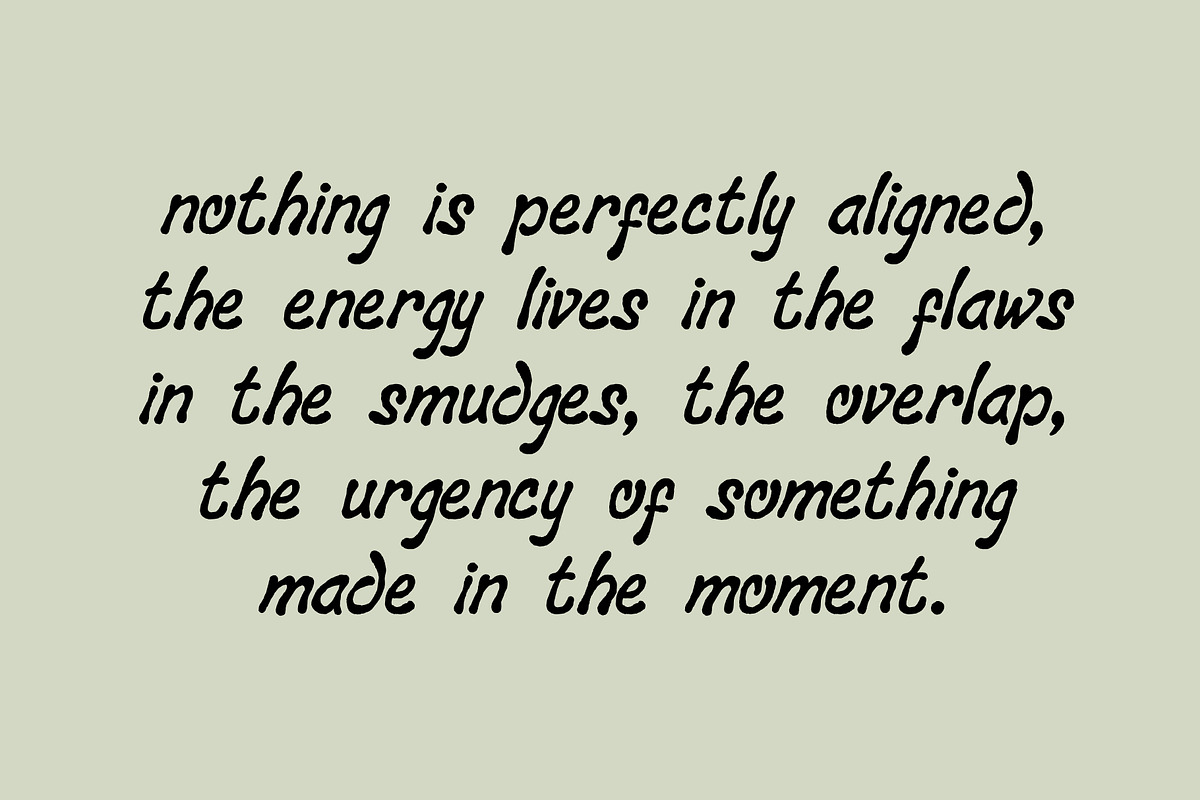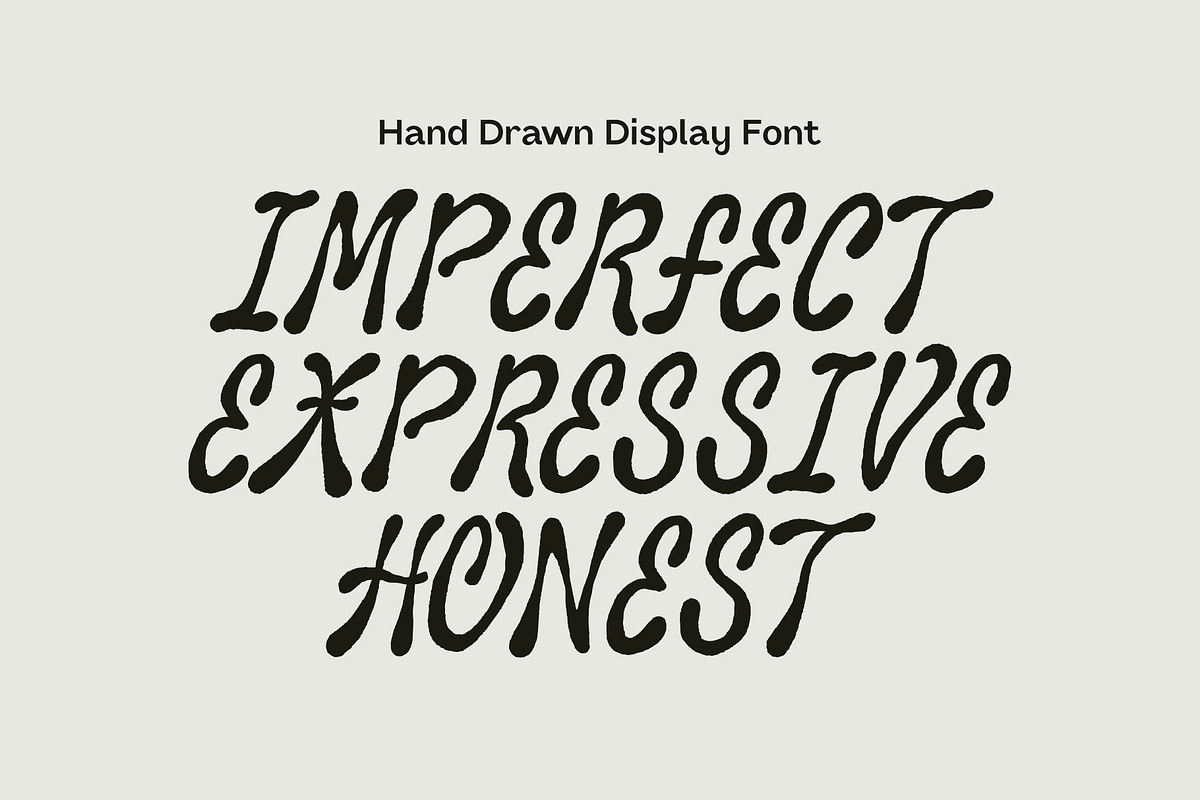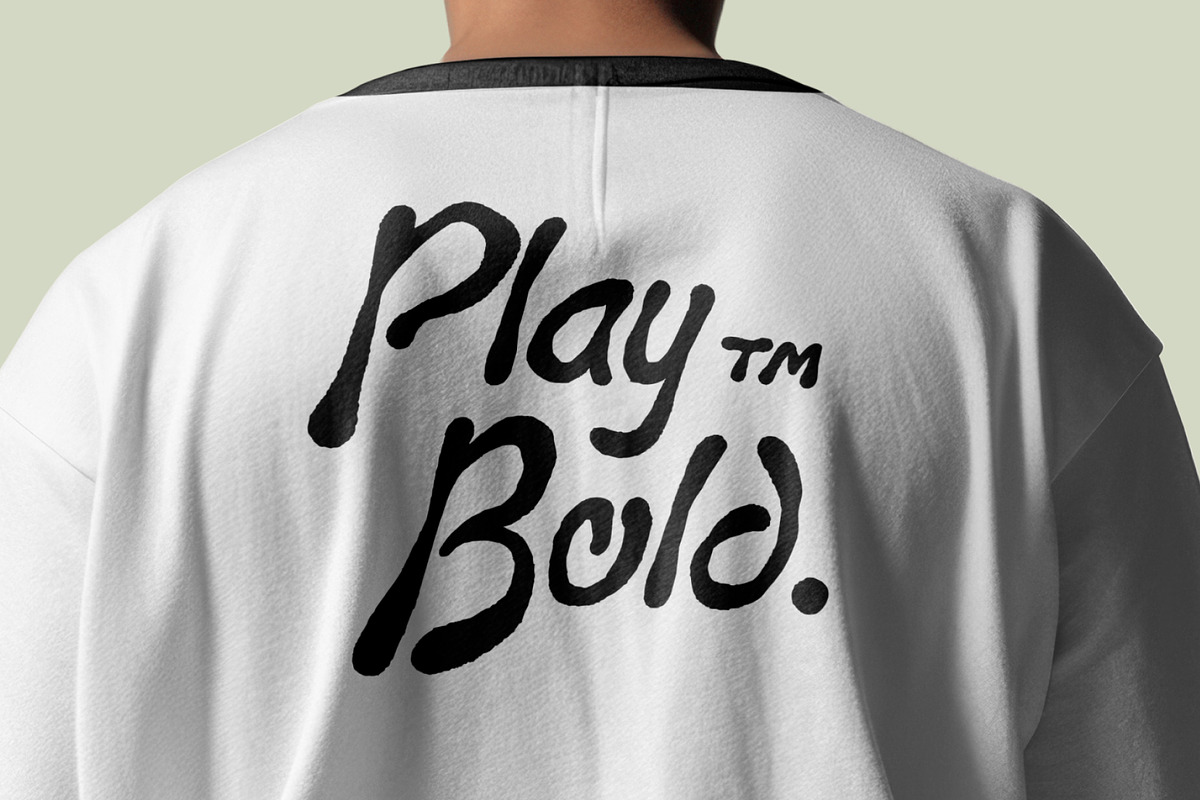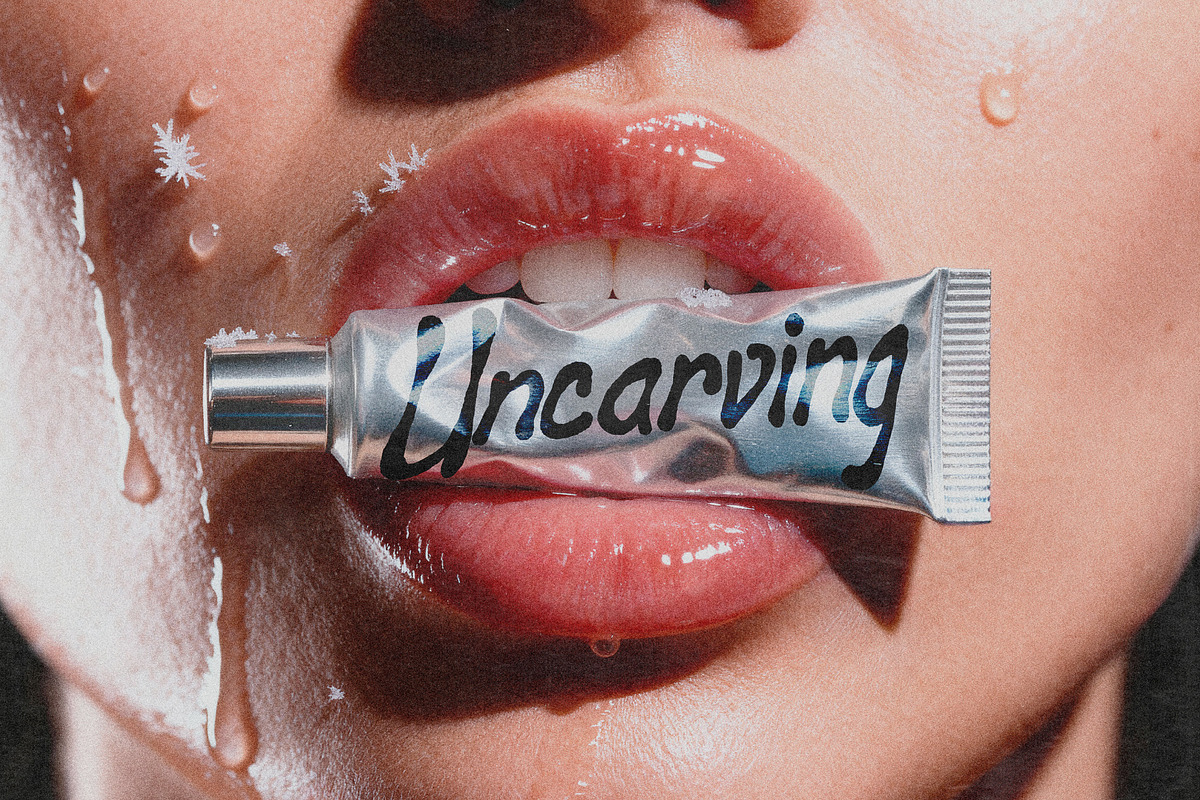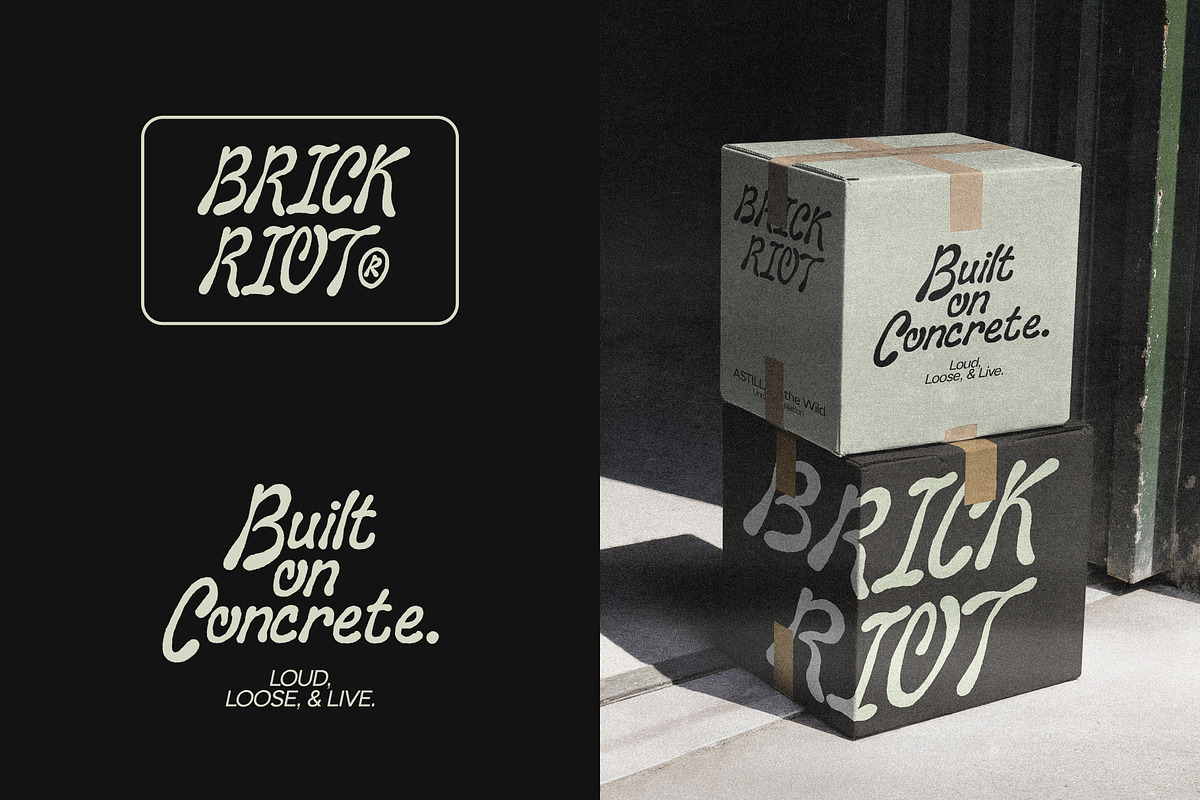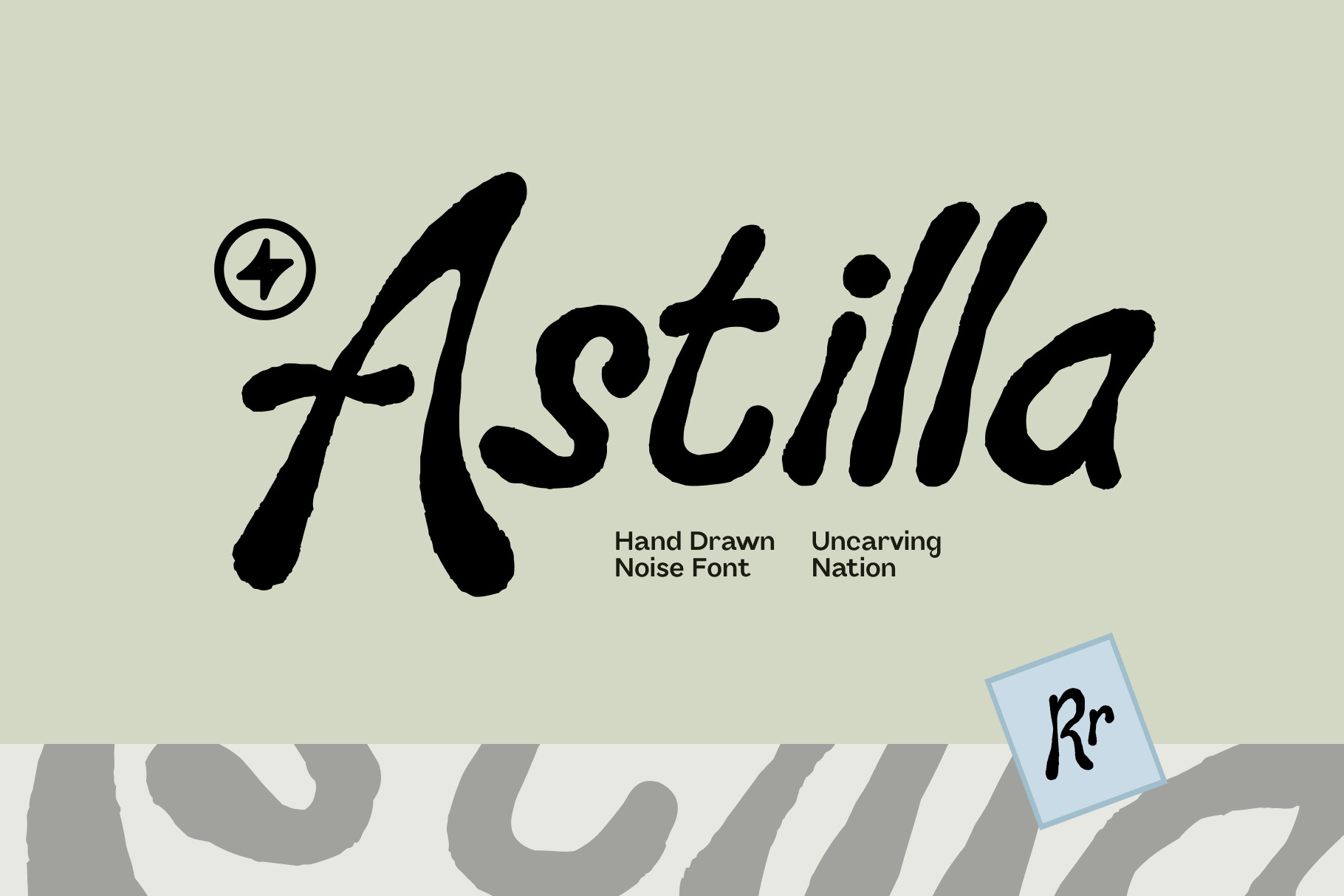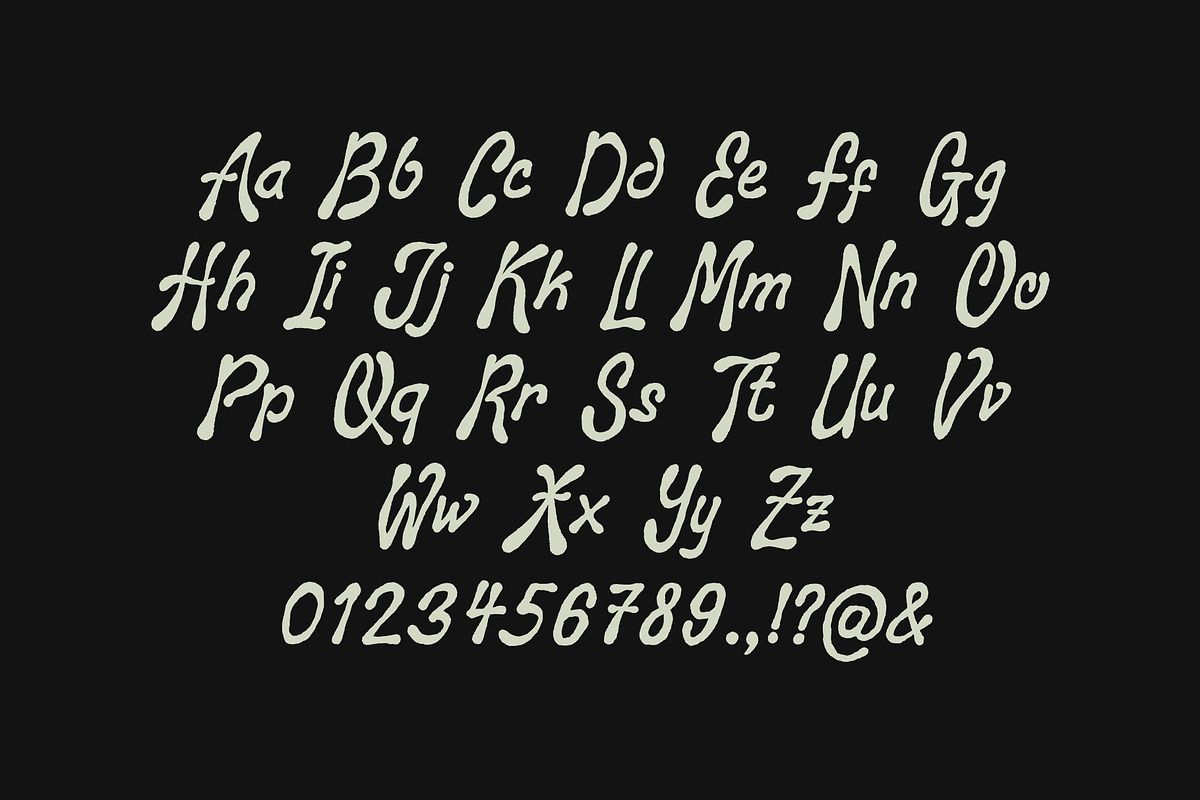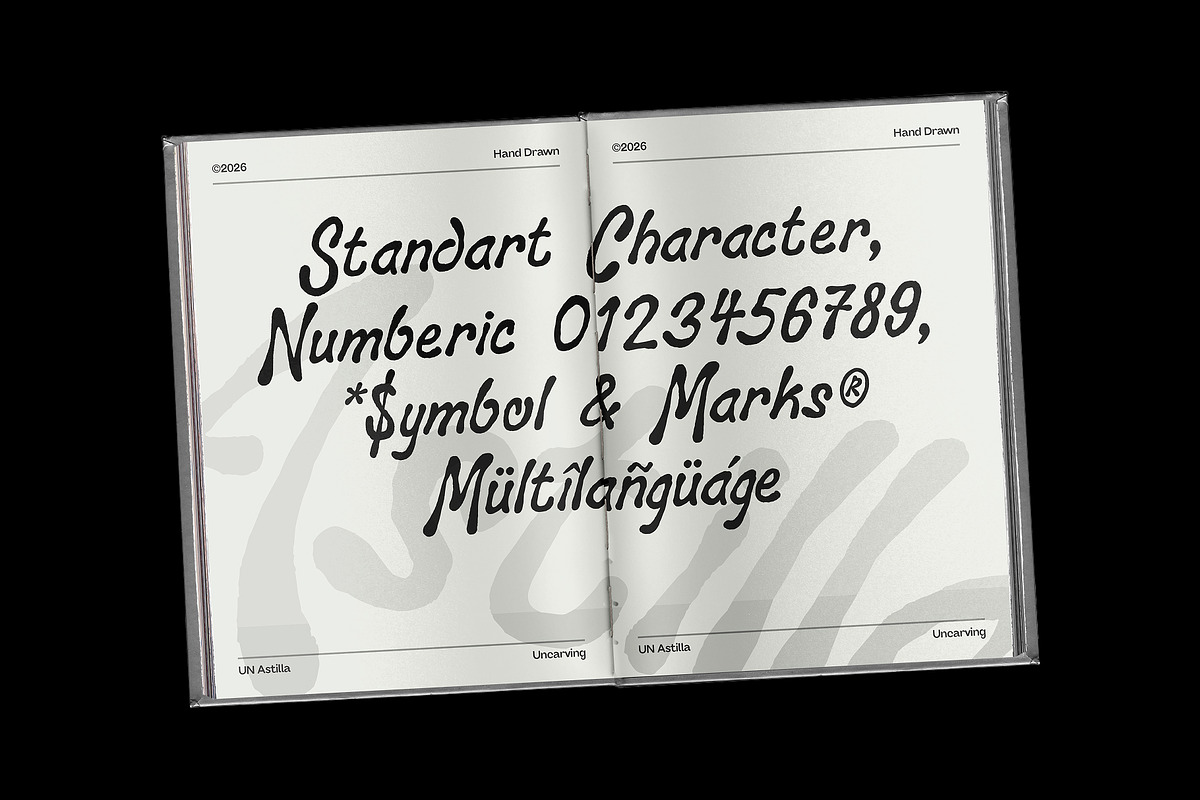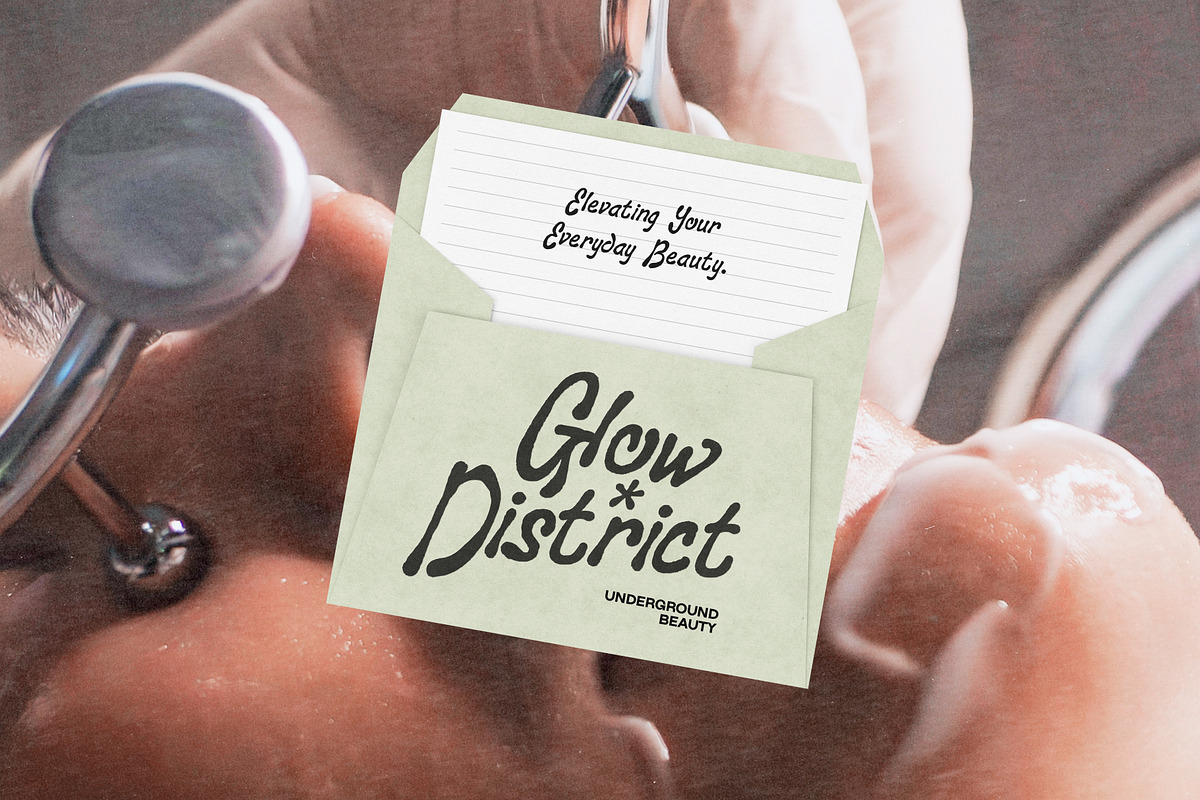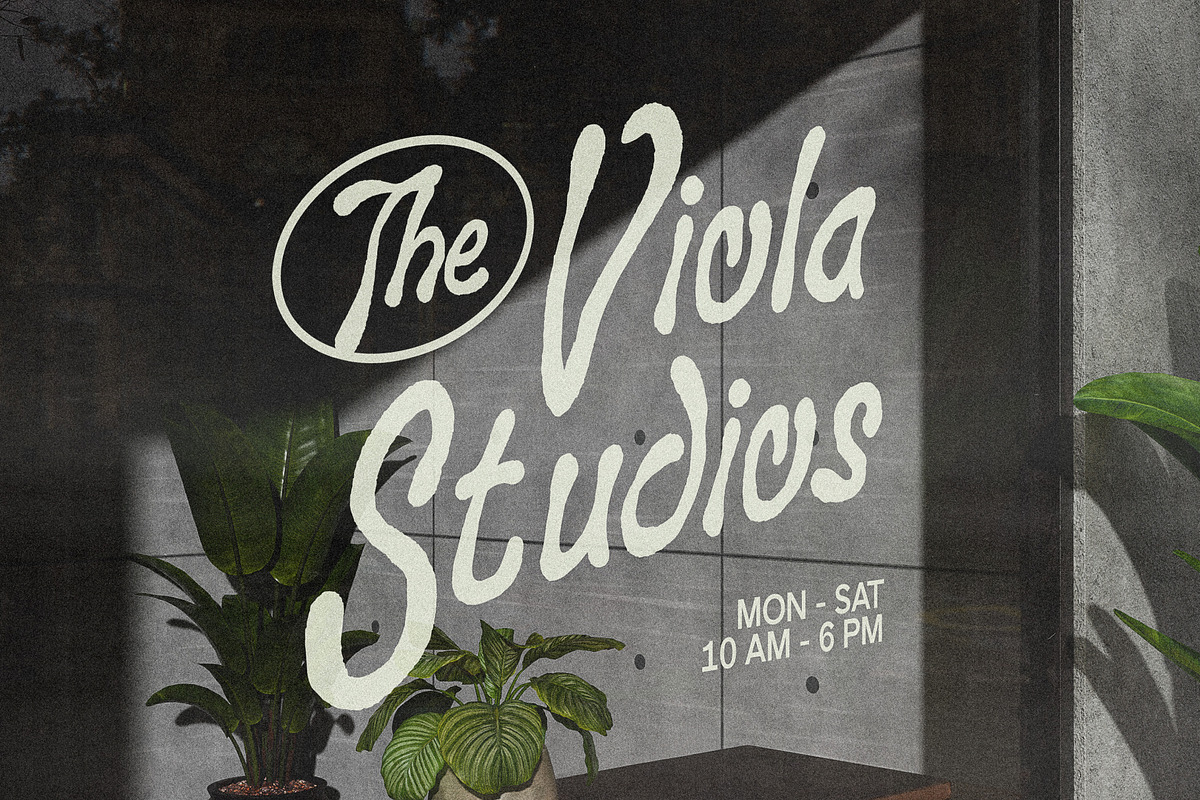
Astilla - Display Font
Raw & Unfiltered hand-drawn creation captures the spirit of late-night walls, imperfect strokes, and fearless expression. Every curve feels alive — textured, instinctive, and full of movement. It’s built for bold statements, disruptive branding, underground posters, streetwear drops, album covers, and projects that refuse to blend in.
Not polished. pure attitude in every mark. Perfect for designers who want their work to feel human, tactile, and impossible to ignore.